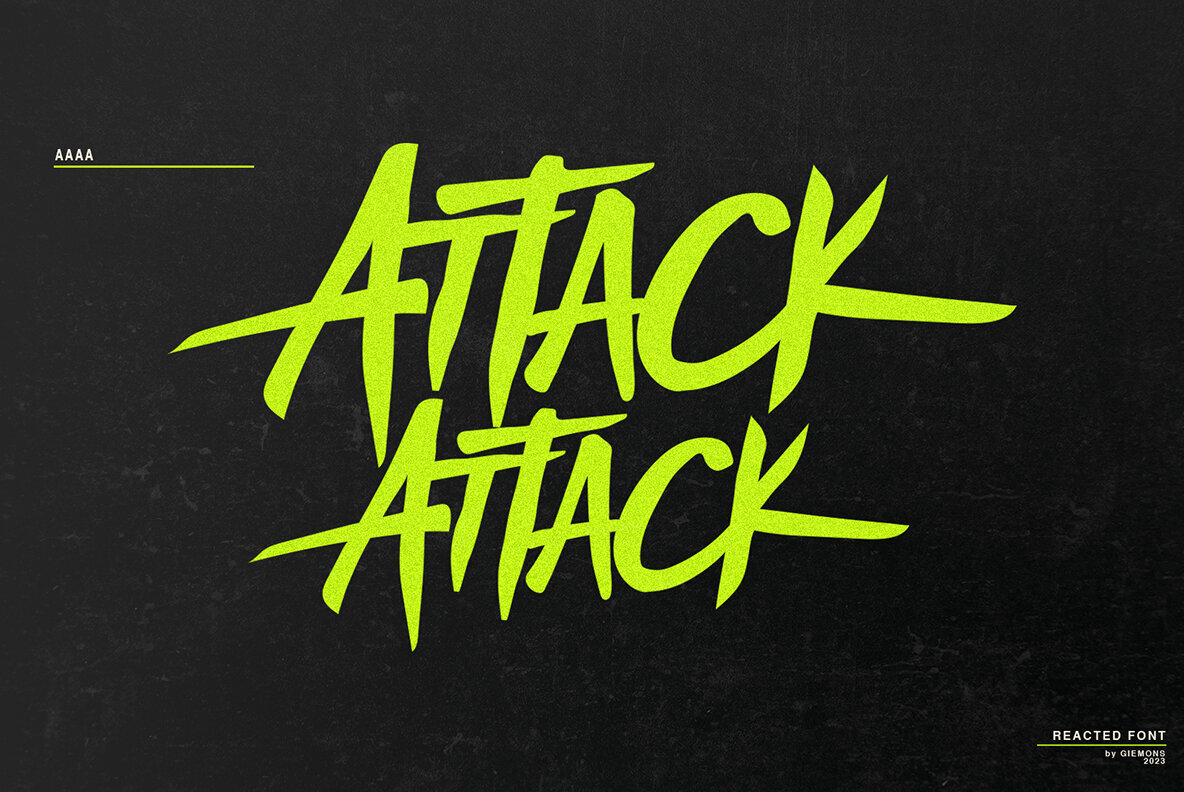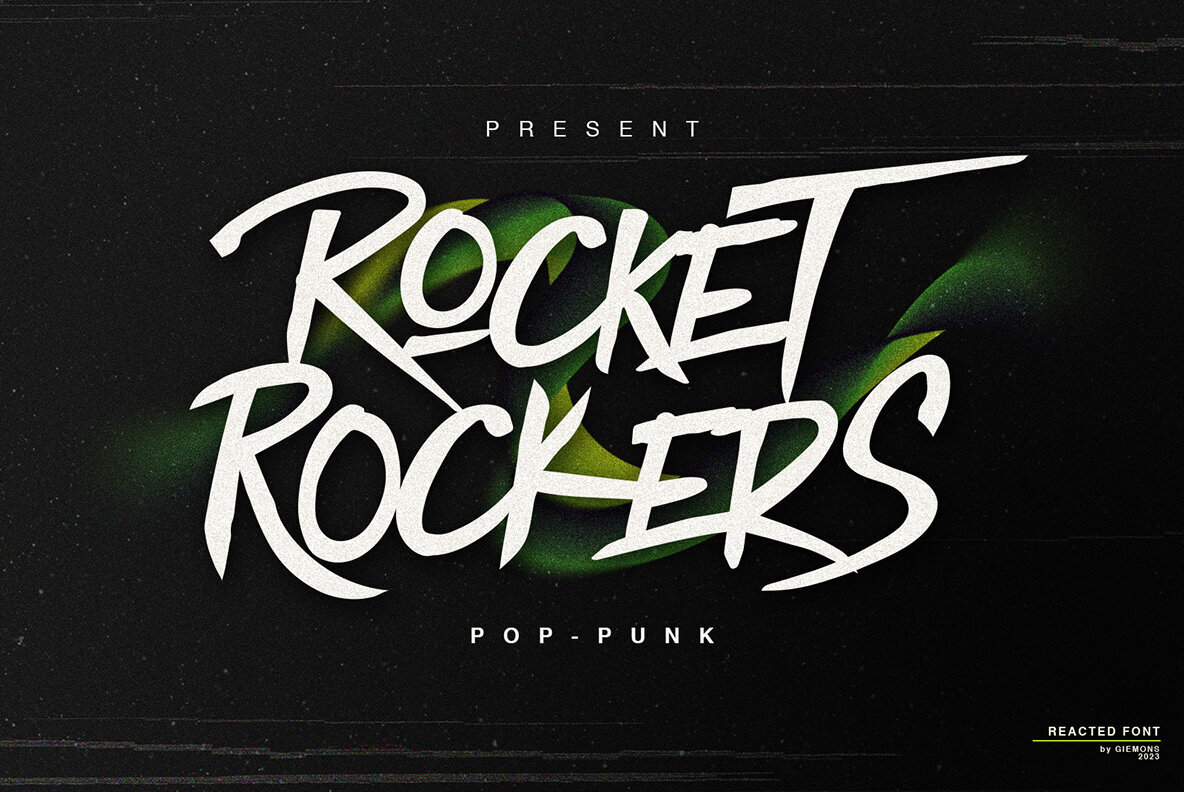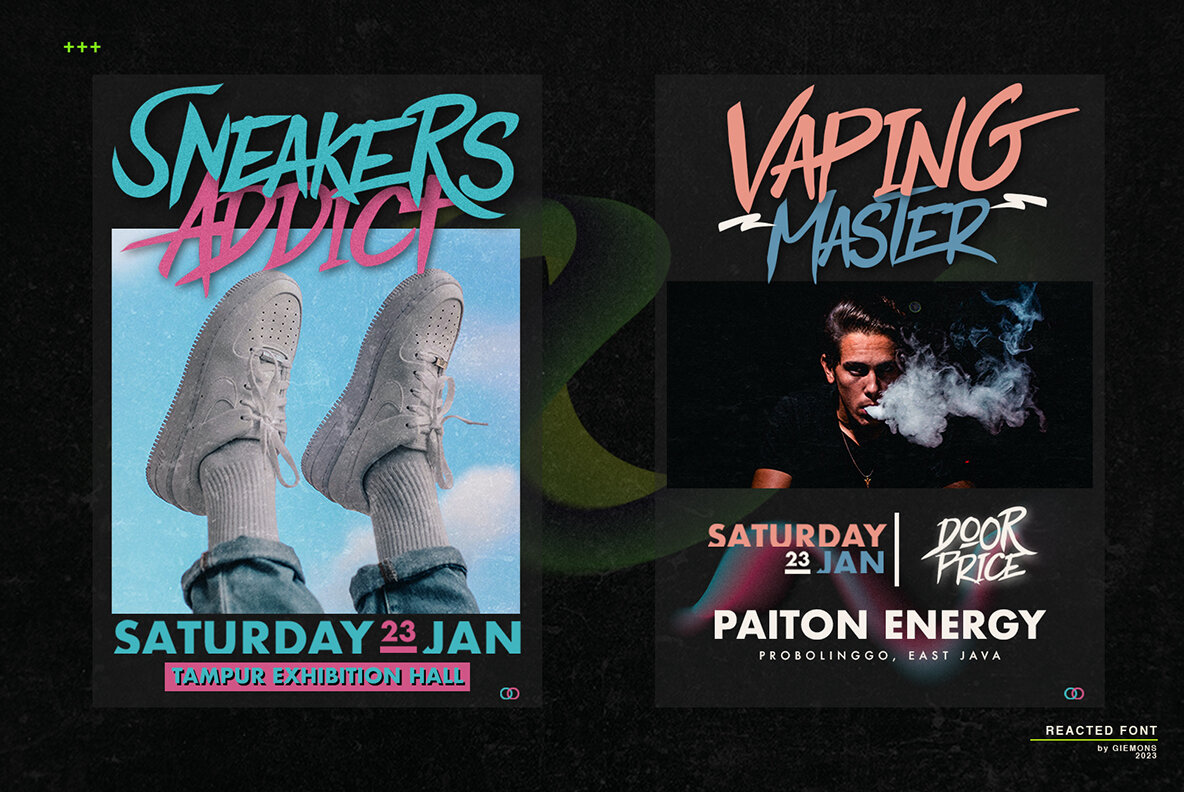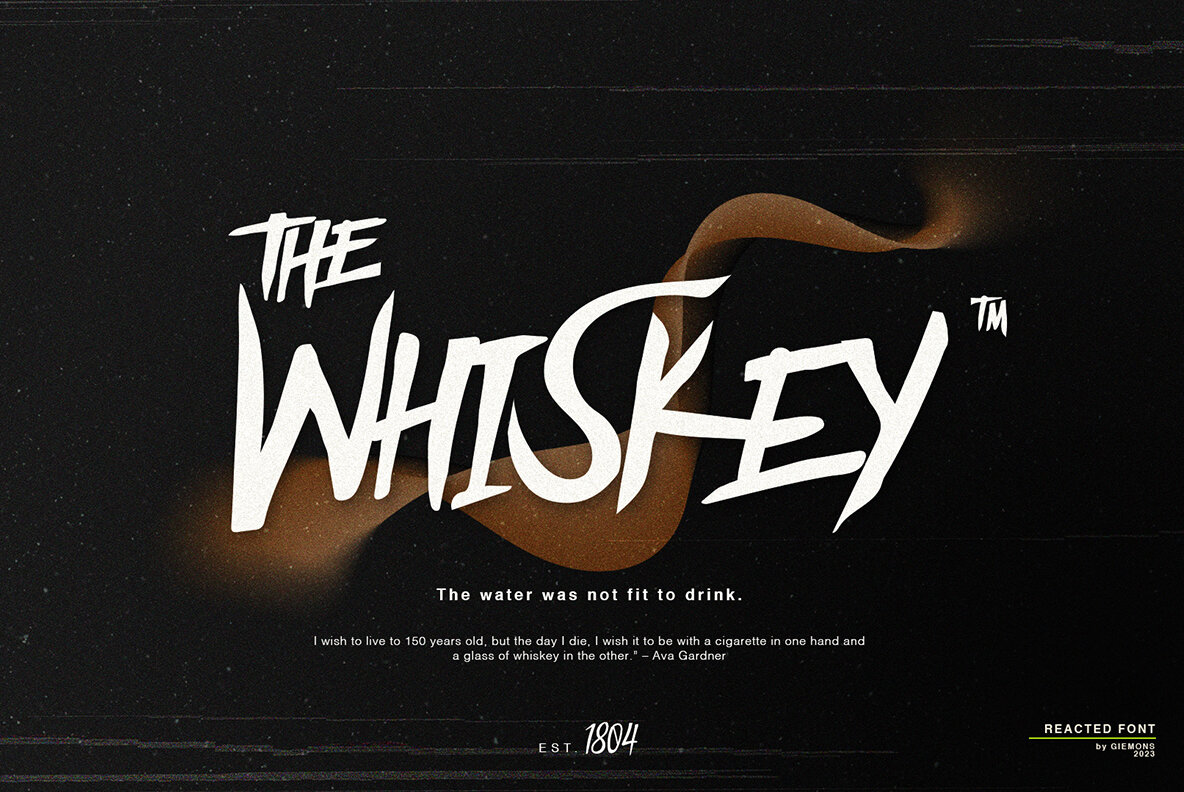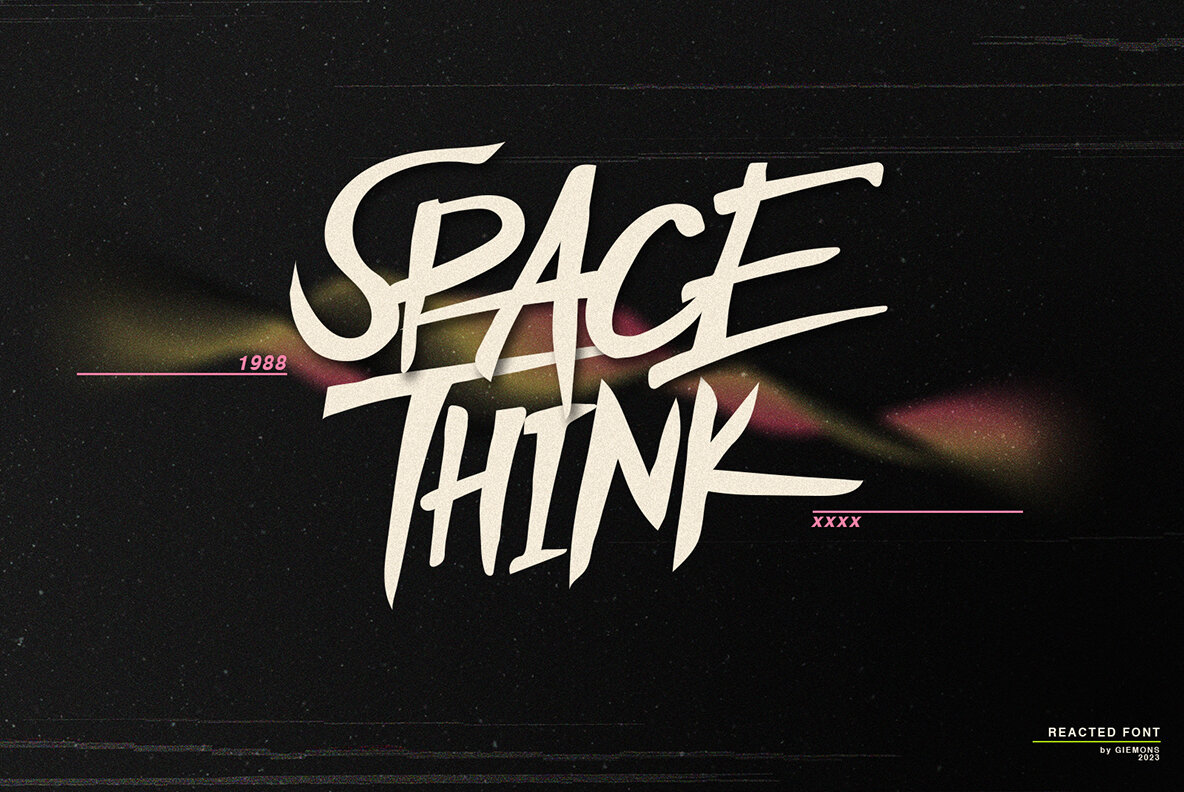
Reacted Font
Reacted Font Regular
Reacted Font Brush invites you into the world of hand-lettered typography with a distinctive touch of rough, pressure-driven artistry. Perfect for enhancing logos, headlines, posters, and signage, this font captures the authentic look often associated with handcrafted types. With its meticulously executed pressure style, the font offers a seamless transition from digital to handwritten analogue.Reacted Font Brush: Hand-Lettered Pressure Artistry